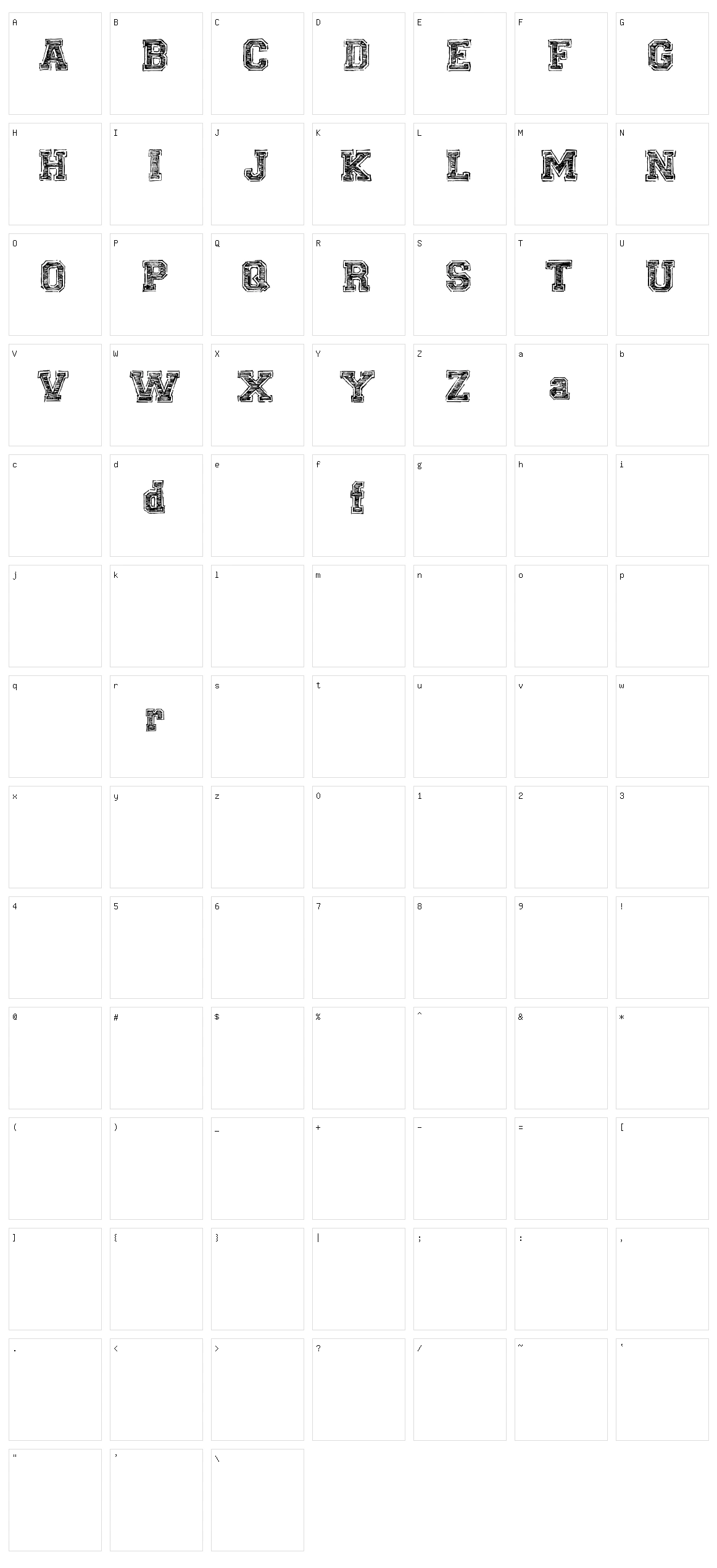
The free font Universal College Draft is carefully designed by Fontscafe.com, showcasing a thoughtful balance of creativity and usability and falls under the Old School font style. When you download the ZIP file, it contains only 549.56 KB of font files, making it lightweight and quick to download. Please review the license details below to understand permitted usage and distribution rights. If license information is not available, we recommend using this font for personal projects only or contacting the author directly for commercial usage permissions.